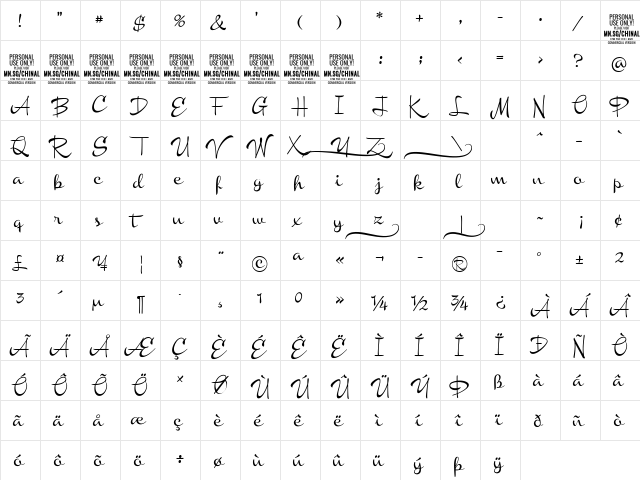
Chinal Medium PERSONAL USE ONLY Regular
| Foundry | Mans Greback |
| Designer | Mans Greback |
Design Context for Chinal Medium PERSONAL USE ONLY Typeface
Chinal Medium PERSONAL USE ONLY is a composed and adaptable typeface that performs quietly and consistently across a wide range of design contexts.